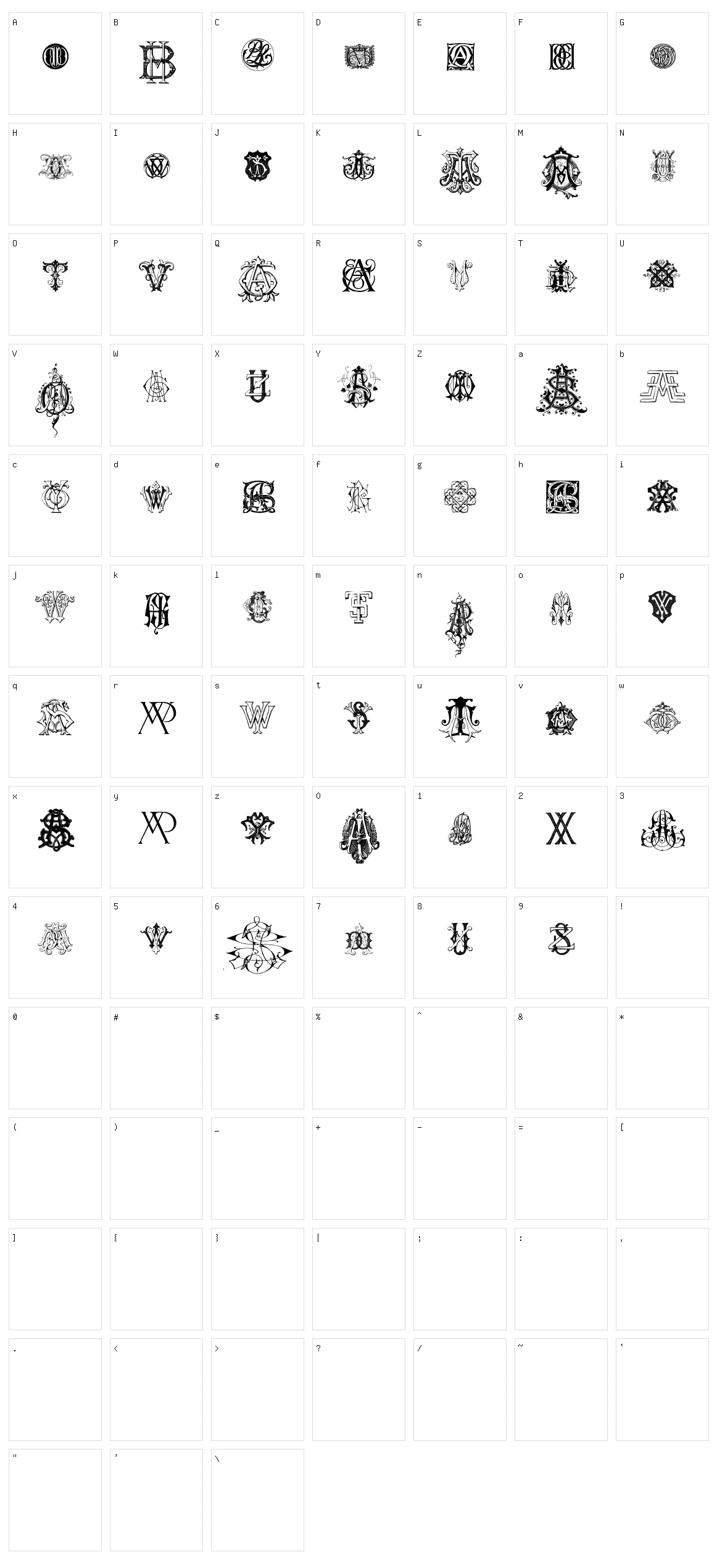
The free font Intellecta Monograms Random Samples Nine is carefully designed by Intellecta Design, showcasing a thoughtful balance of creativity and usability and falls under the Initials font style. When you download the ZIP file, it contains only 534.52 KB of font files, making it lightweight and quick to download. Please review the license details below to understand permitted usage and distribution rights. If license information is not available, we recommend using this font for personal projects only or contacting the author directly for commercial usage permissions.
INTELLECTA DESIGN makes research and development of fonts with historical and artistical relevant forms.